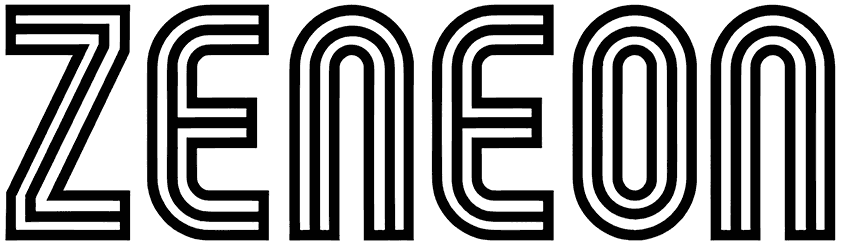
Zeneon Font
As a great item for your design of a special event nightclub flyer, this neon font is going to make your final showcase striking. The Zeneon font doesn’t support numbers, but as a futuristic font, it can be a cool pickup for many layouts. Set it on your intended project and see how unique the outcome will be.